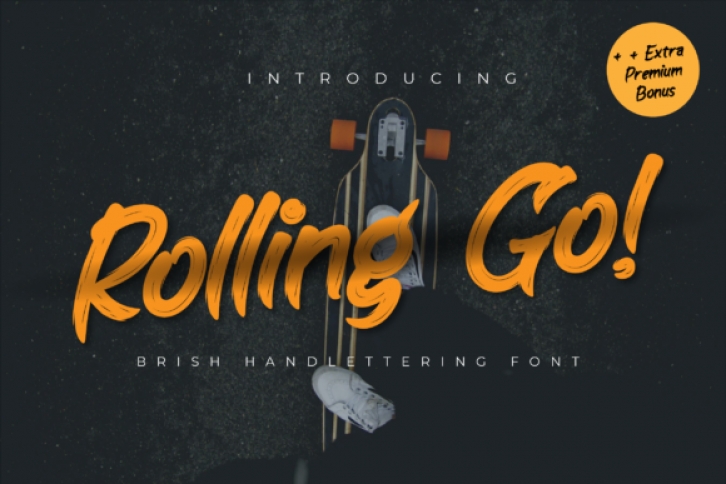
Rolling Go is a sweet and friendly display font. Its natural and unique style makes it incredibly fitting for a large pool of designs. The only limit is your imagination!
Masterfully designed to become a true favorite, this font has the potential to bring each of your creative ideas to the highest level!